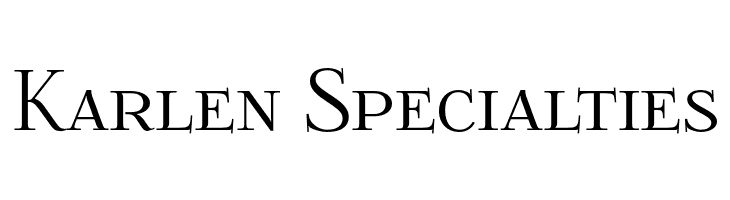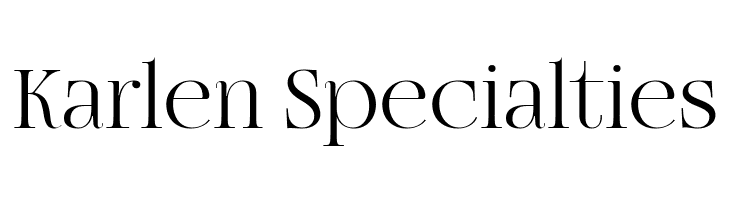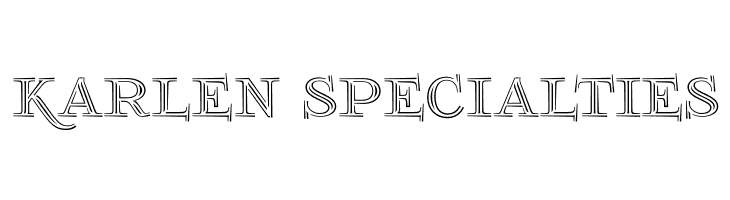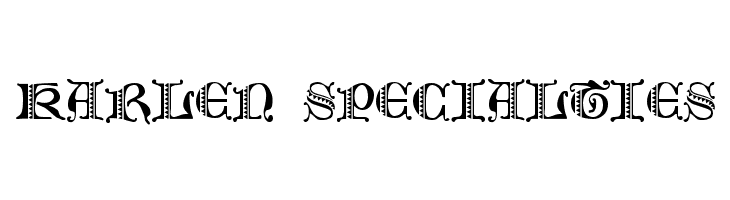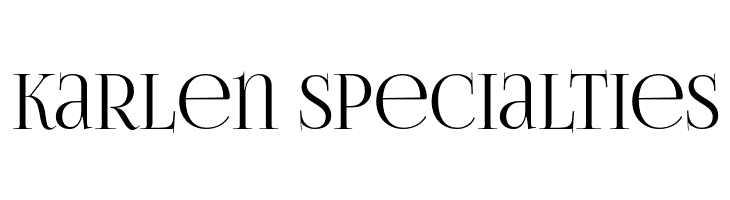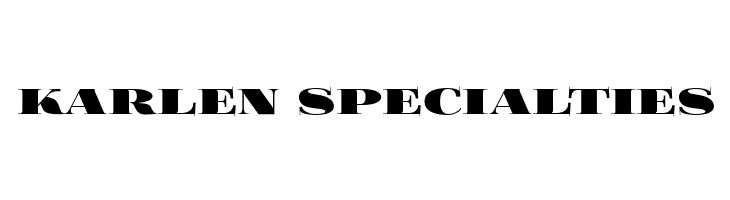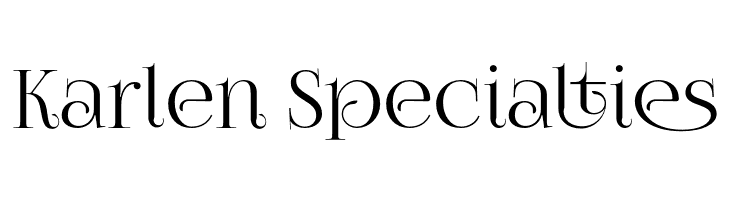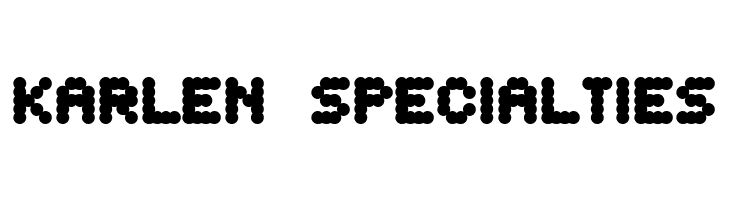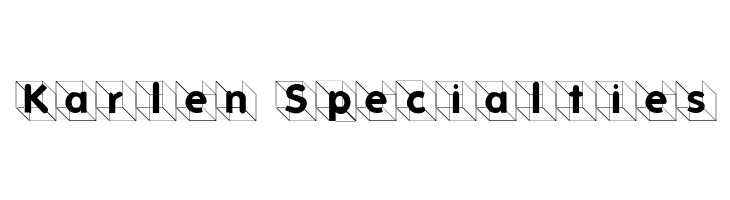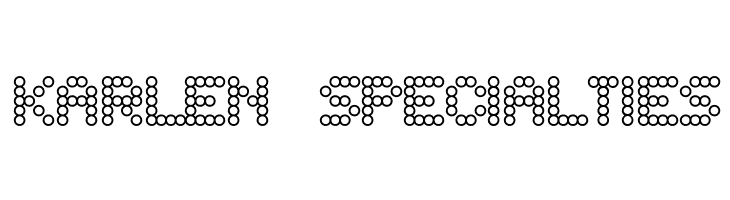
An artistic font with abstract, line-drawn figures resembling flying women.
A whimsical font made from fly illustrations, perfect for creative projects.
A dot-based font with a digital, modern aesthetic, ideal for tech-themed designs.
A modern, pixelated font composed of small circles, offering a playful and decorative style.
A playful, bubble-like font with rounded, dot-formed characters.
A decorative font featuring bird illustrations for each character.
A bold, modern sans-serif font with excellent legibility and uniform stroke width.
A modern, italic sans-serif font with a clean and dynamic style.
A modern sans-serif outline font with clean lines and balanced proportions.
A modern sans-serif outline font with an italic style, offering a clean and dynamic look.
A classic serif font with high contrast and elegant curves.
A classic serif font with elegant strokes and refined design.
A bold, high-contrast display font with sharp serifs and a modern style.
A classic serif font with elegant curves and sharp serifs, offering a sophisticated and timeless look.
An elegant, decorative serif font with intricate line work.
A decorative serif font with a double-line, shadowed design.
A sophisticated serif font with high contrast and elegant serifs.
A sophisticated serif font with high contrast and elegant details.
An elegant serif font with high contrast and sophisticated curves.
A geometric, folded ribbon-style font with a modern, artistic flair.
An ornate and decorative font with intricate patterns and vintage flair.
A bold, modern font with characters in white on black circles.
A bold, sans-serif font with characters enclosed in circles, offering a playful and modern look.
A modern, geometric sans-serif font with a light weight and clean design.
A bold, geometric font with characters encased in 3D cubes, offering a modern and playful look.
A bold, modern font with a double-line effect and geometric structure.
A dynamic and elegant script font with flowing, interconnected letters and decorative flourishes.
A bold, brush-style handwritten font with a lively and informal appearance.